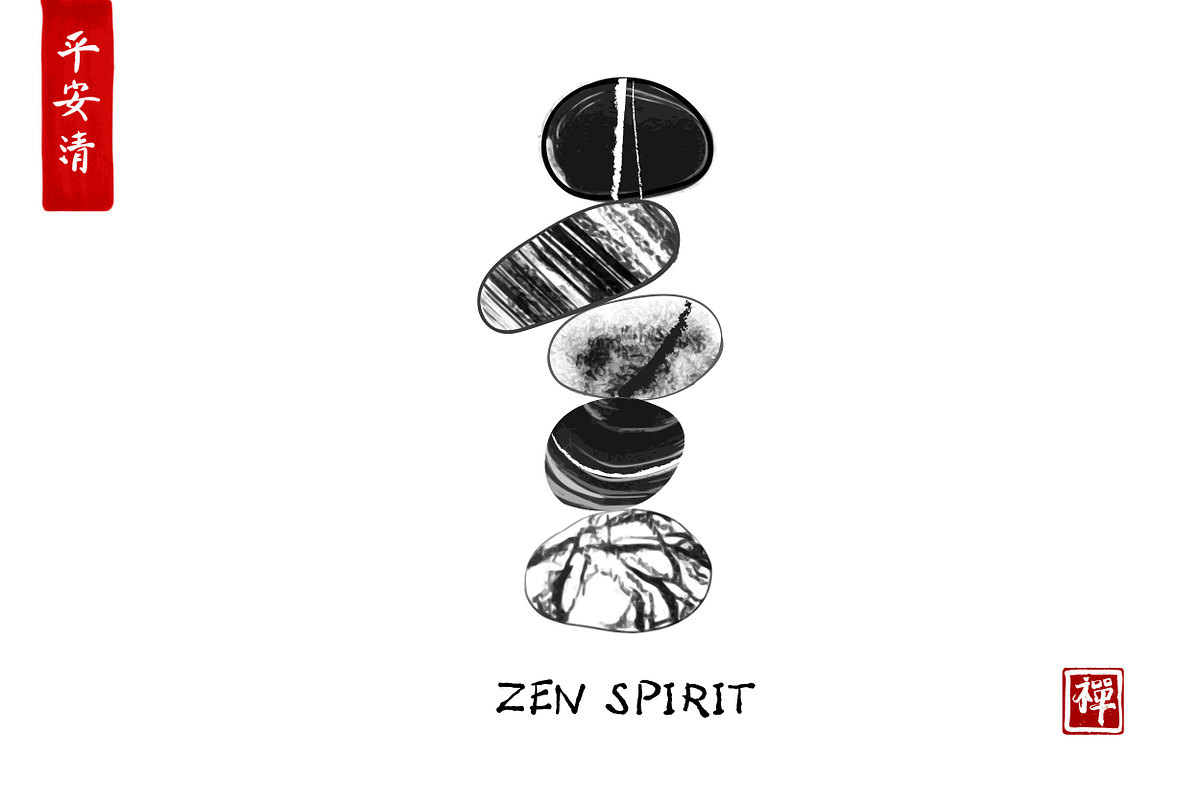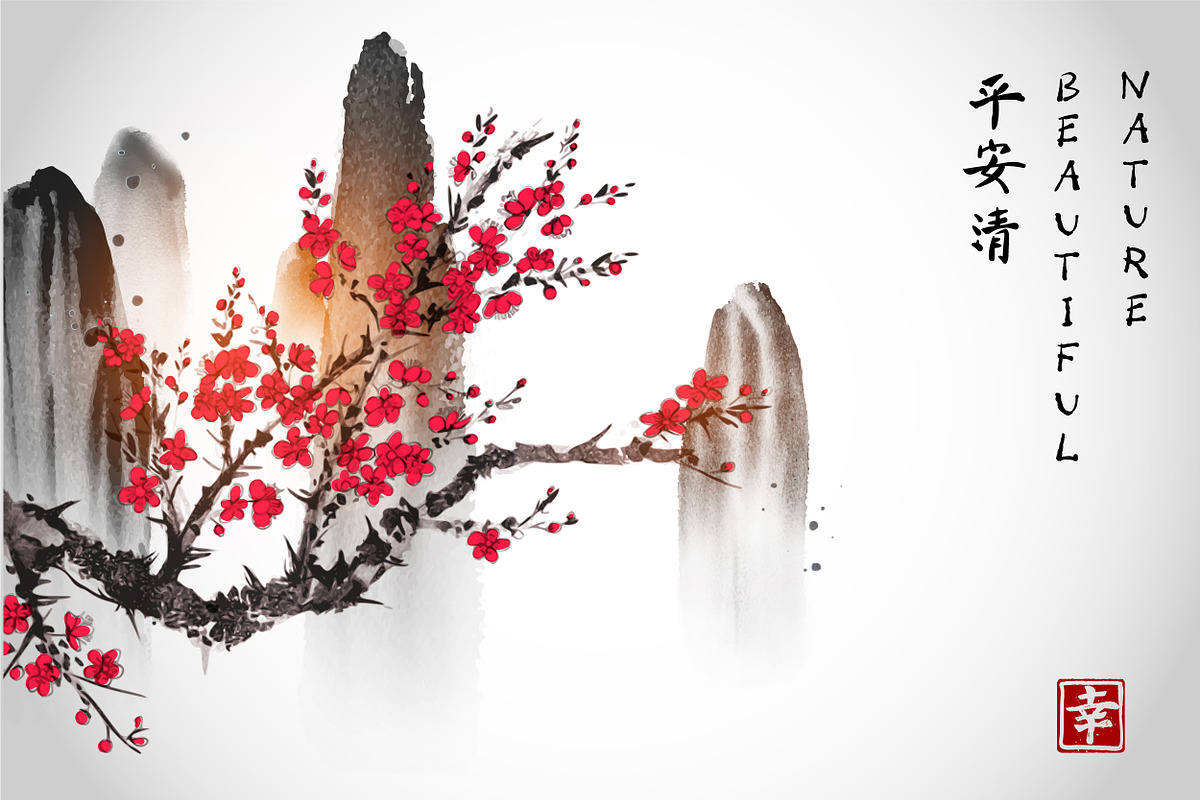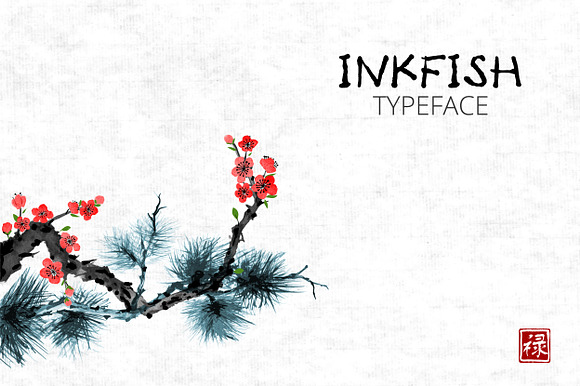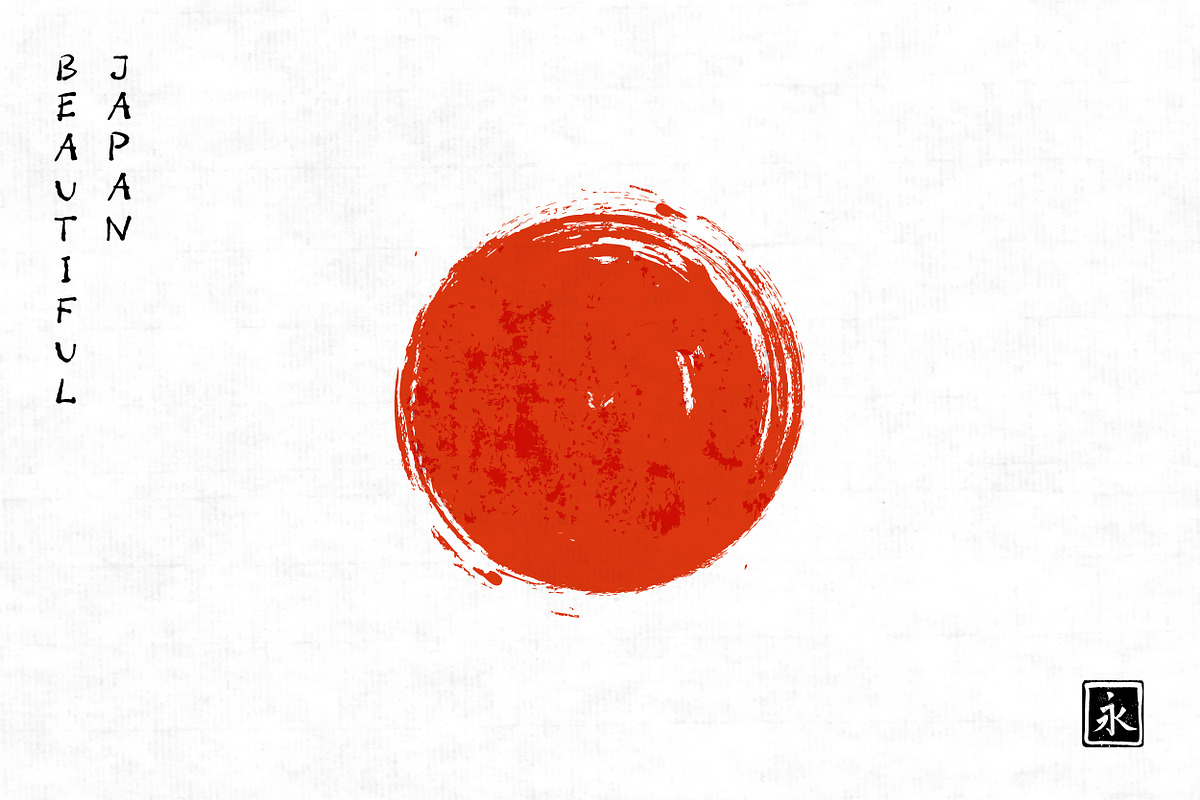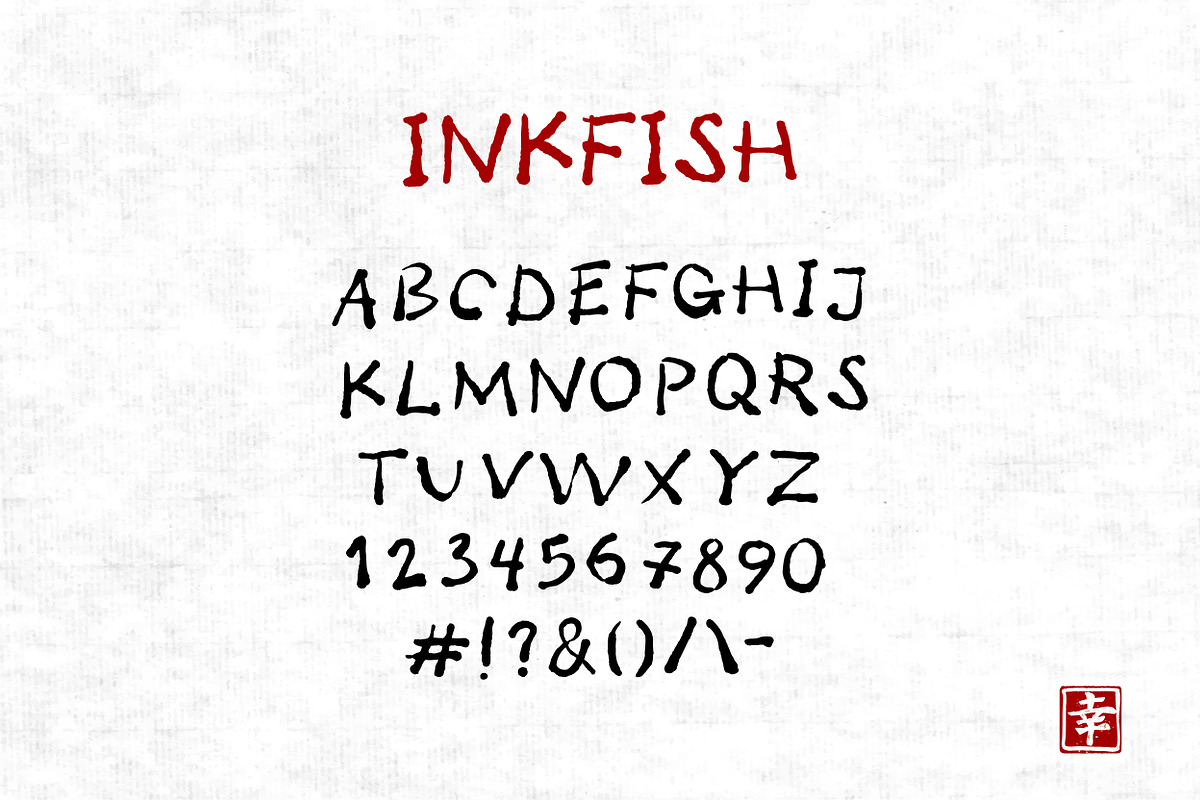
Inkfish font
SIMPLE ZEN STYLE FONT HAND DRAWN WITH CHINESE INK
Why Inkfish font is worth a look
Inkfish font by ElinaLi fits naturally into Branding, posters, packaging, typography.